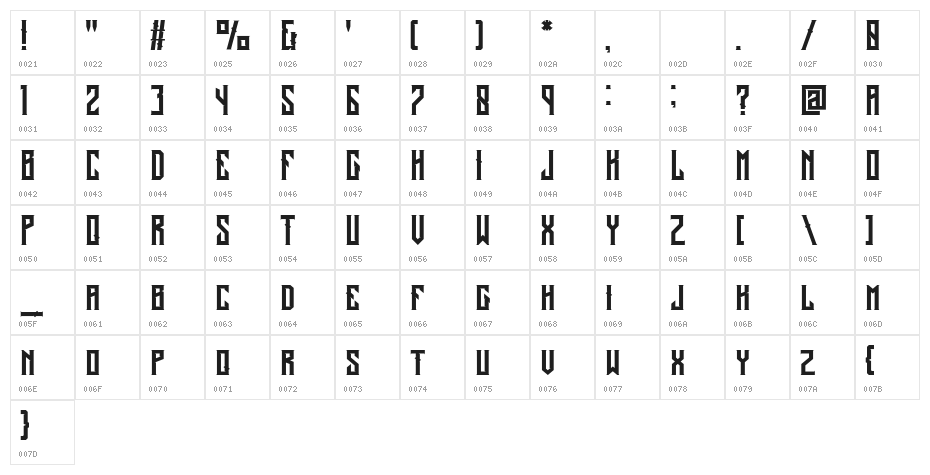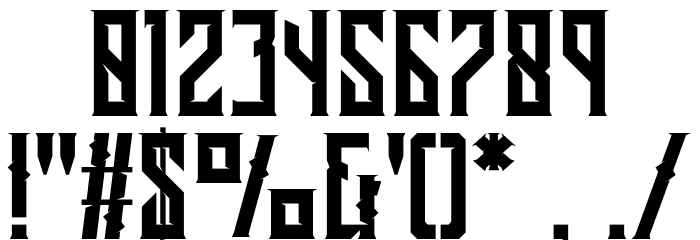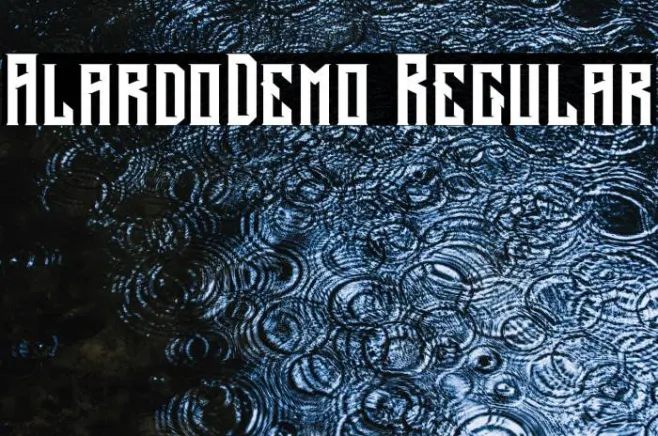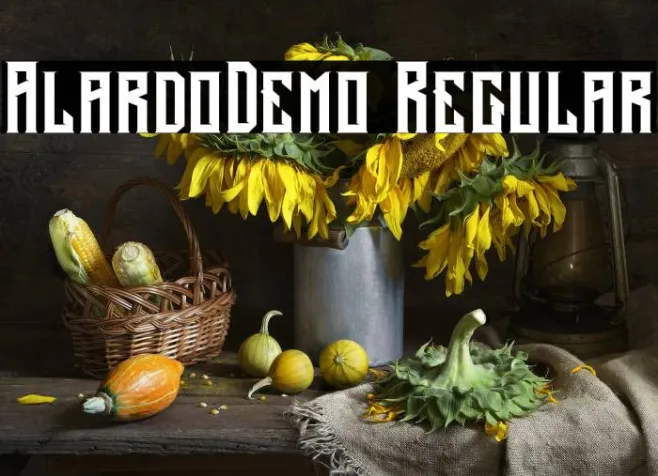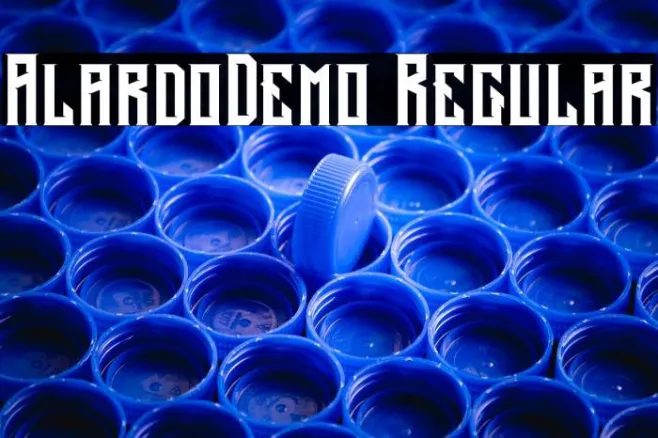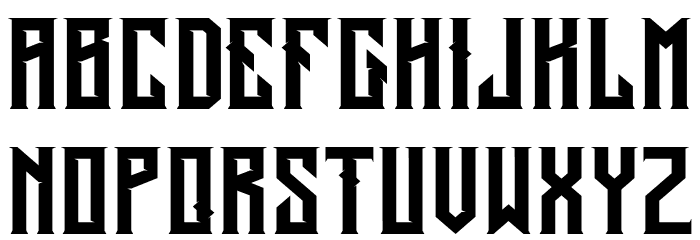
AlardoDemo-Regular Font
AlardoDemo-Regular Description
This font features a bold and striking design with sharp, angular edges and a geometric structure. Each character is crafted with a unique, edgy style that combines modern aesthetics with a touch of vintage flair. The uppercase and lowercase letters maintain a consistent height, creating a uniform appearance. The numbers and special characters follow the same design principles, ensuring a cohesive look across all elements. The font's boldness and distinctiveness make it stand out, while its geometric precision adds a sense of order and balance.
| Proposed Projects | Ideal for branding, posters, album covers, and any project requiring a bold, modern statement. |